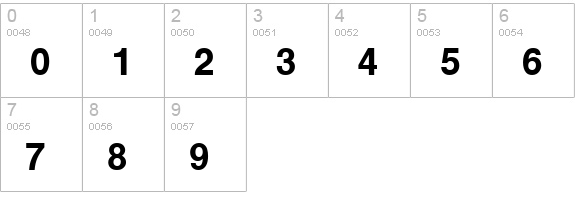
NimbusSanNo5TCYMed Font Details
NimbusSanNo5TCYMed font is a modern and versatile typeface that strikes the perfect balance between professionalism and creativity. With its clean lines and balanced proportions, this font exudes a sense of elegance and sophistication. The NimbusSanNo5TCYMed font is ideal for a wide range of design projects, from branding to editorial design. What sets this font apart is its versatility - it can be used for both headlines and body text, making it a practical choice for designers looking for a font that can do it all. The NimbusSanNo5TCYMed font also features a variety of weights and styles, allowing for endless design possibilities. Best of all, the NimbusSanNo5TCYMed font is free to download at FontsMarket.com, making it accessible to designers of all levels. Whether you're working on a personal project or a client's campaign, this font is sure to elevate your design and leave a lasting impression.